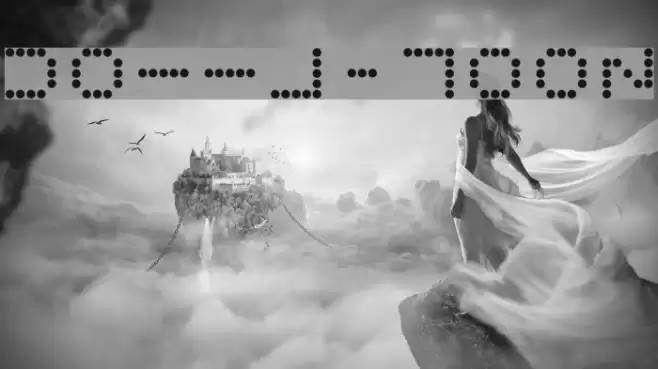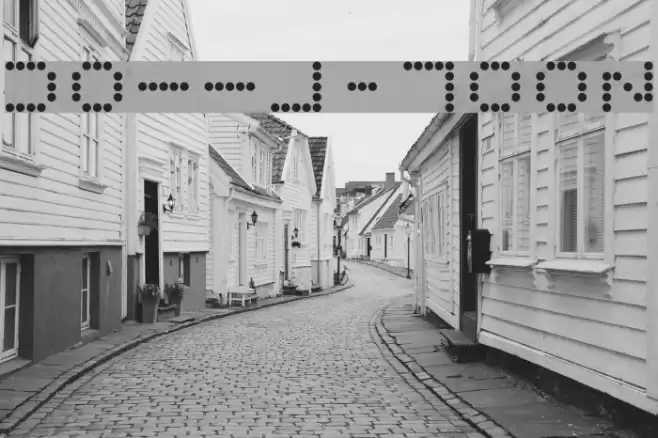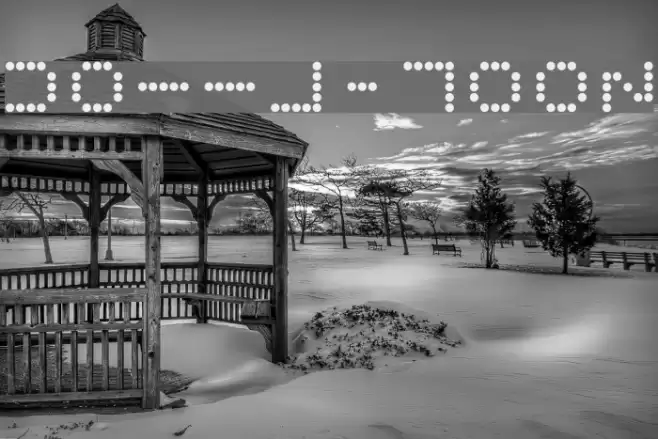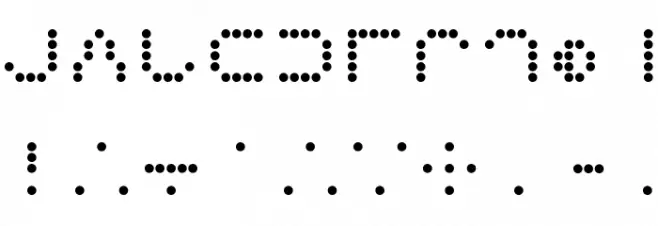
Dotty-Moon Font
Dotty-Moon Description
This font features a unique dot-based design, where each character is formed by a series of evenly spaced dots. The style is highly geometric and abstract, giving it a futuristic and digital appearance. The characters maintain a consistent size and spacing, creating a uniform look across the alphabet. The uppercase and lowercase letters are distinct yet maintain the same dot pattern, ensuring readability while preserving the font's distinctive style. Numbers and special characters are also crafted with the same dot matrix approach, making them seamlessly integrate with the alphabetic characters. This font's playful yet structured design makes it ideal for creative projects.
A dot-based, geometric font with a futuristic and digital aesthetic from Uncategorized fonts.
- Proposed Projects: Ideal for digital art, tech-themed designs, modern posters, and creative branding projects.
- Use Case: Logos, Posters, Digital Art